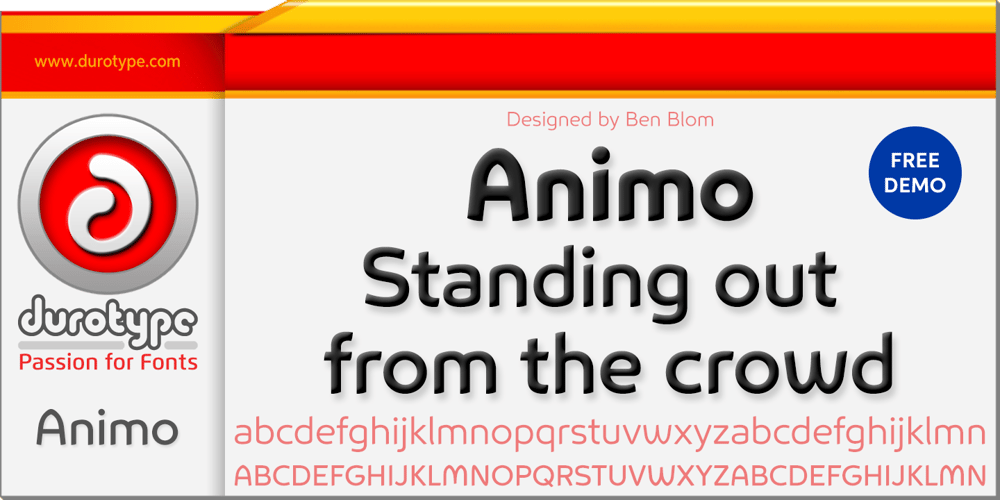
Animo
Animo font
Animo Font Family was designed by Ben Blom and published by Durotype. Animo contains 34 styles and family package options. Animo stands out from the crowd. Animo is surprisingly legible for its outspoken personality. Many of Animo’s small details were crafted to enhance its legibility, while preserving its personality. Animo is suitable for both text and display use — for graphic design, corporate identity design, magazines, reports, editorials, web, advertising, signage, etc. Animo includes 32 fonts, 8 weights, 16 uprights, and matching italics. Animo provides nine numerical styles: lining and oldstyle figures (proportional and tabular), small cap figures, superiors, inferiors, numerators, and denominators. Animo provides small caps, arbitrary fractions, and extensive language support. Animo Alt provides a more usual shape for the ‘A’, ‘M’, ‘W’, and ‘w’. For more information about Animo, download the PDF Specimen Manual.